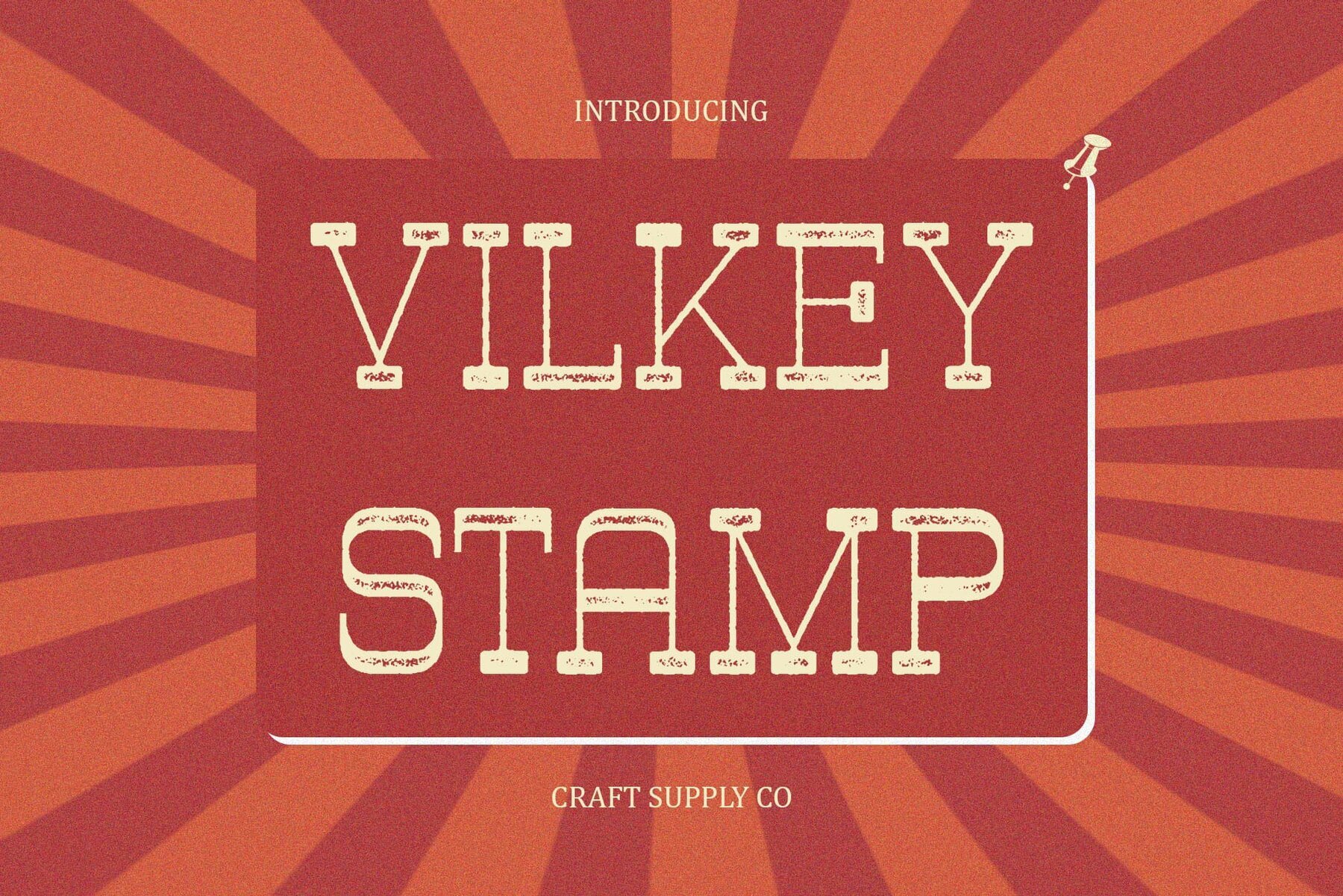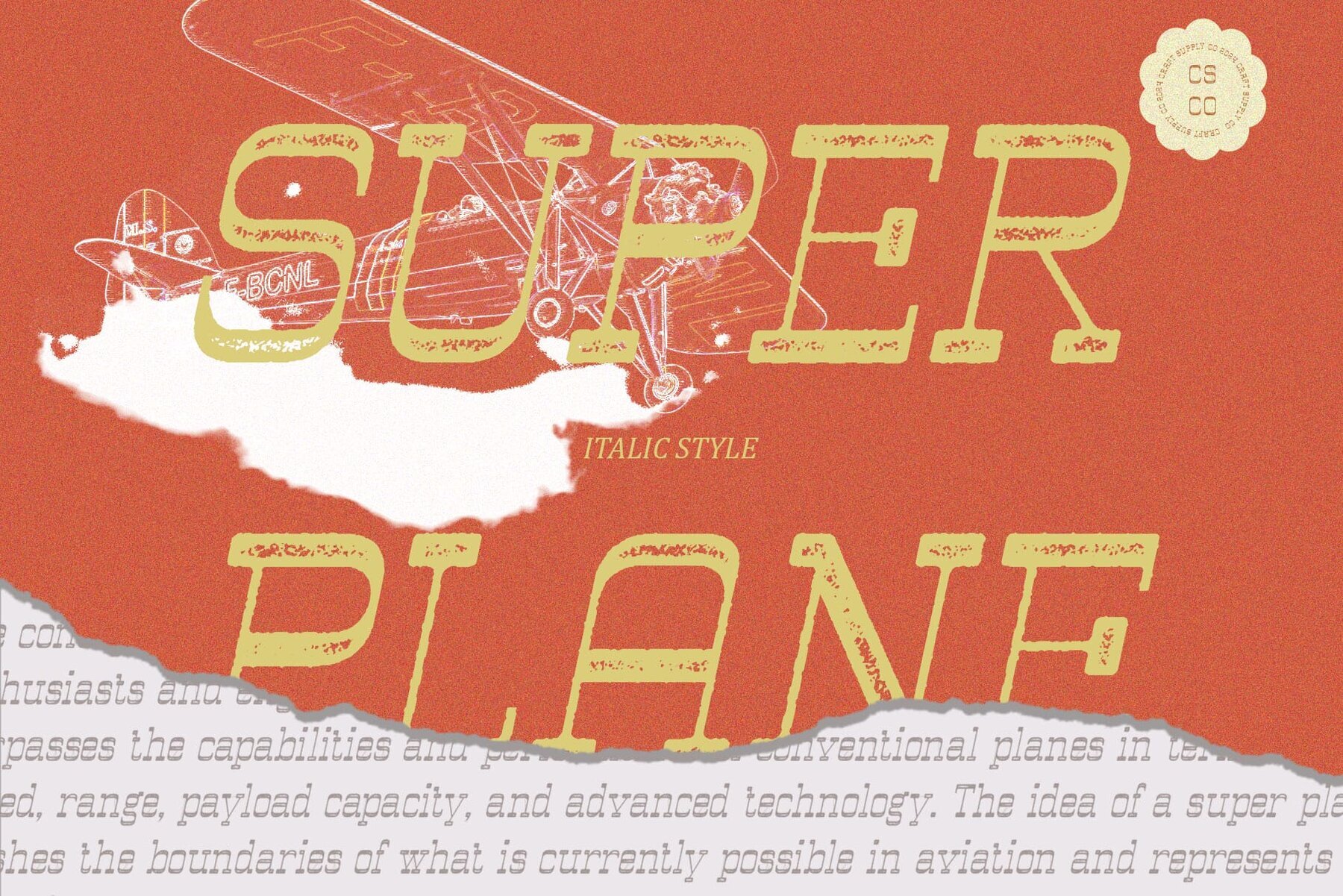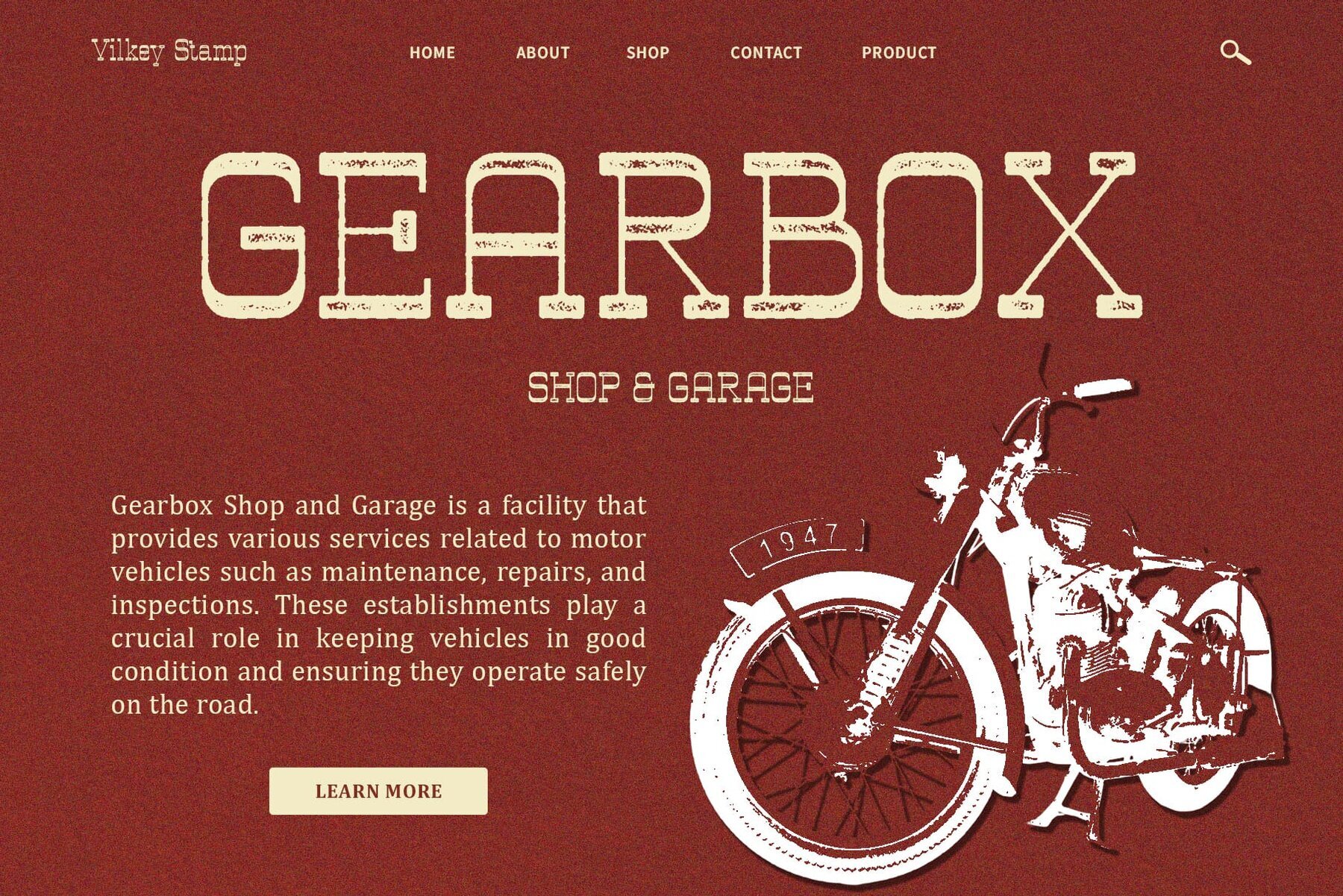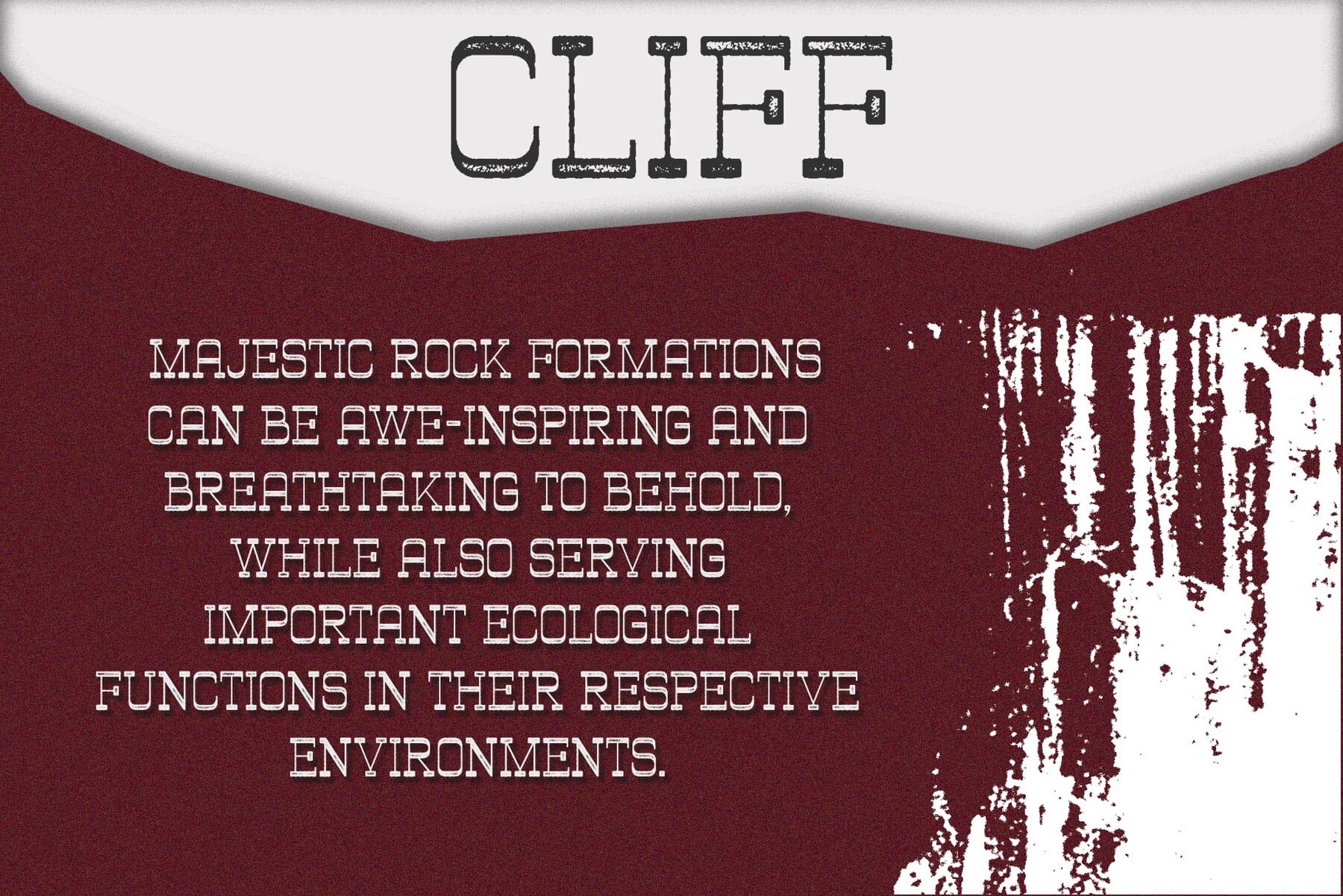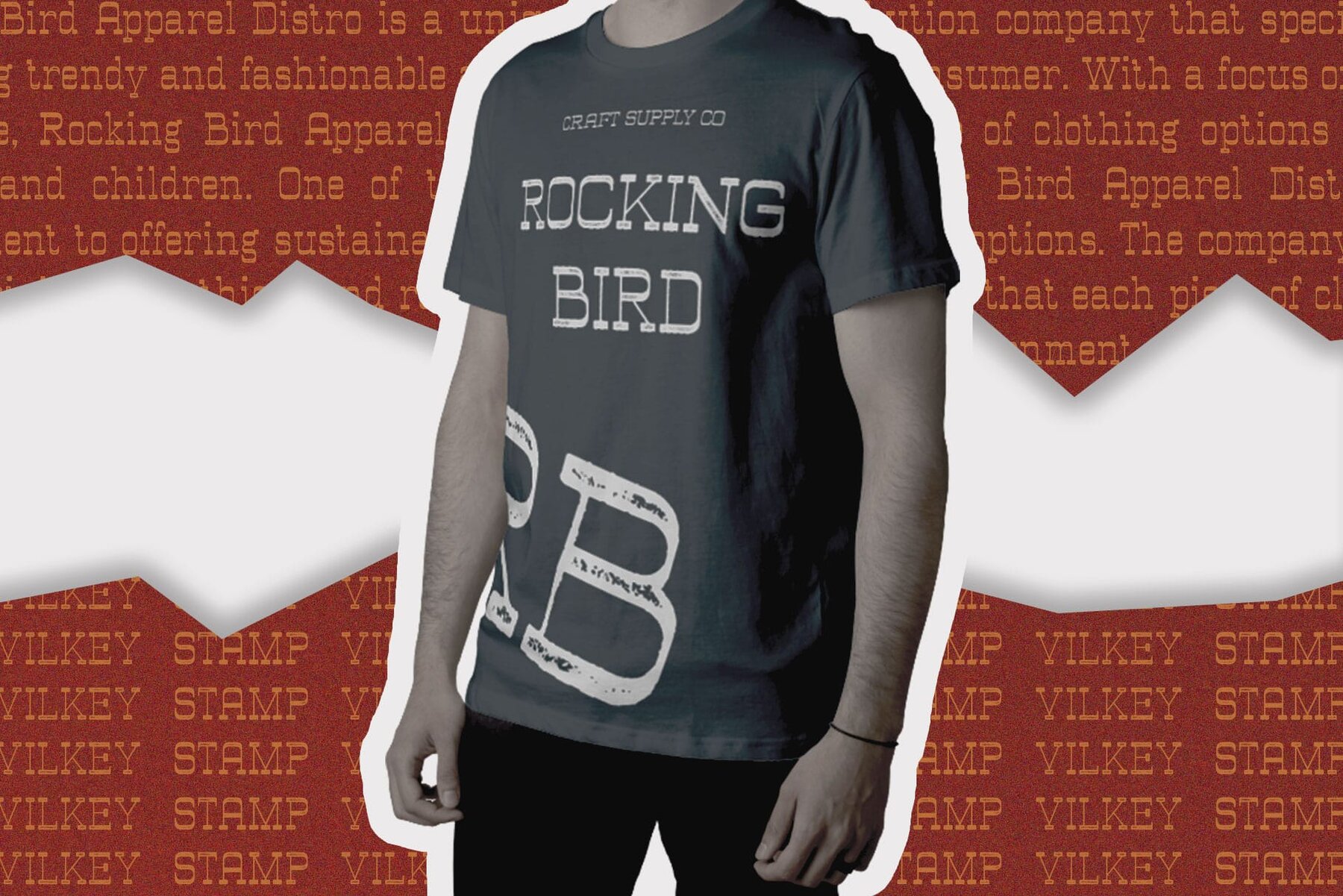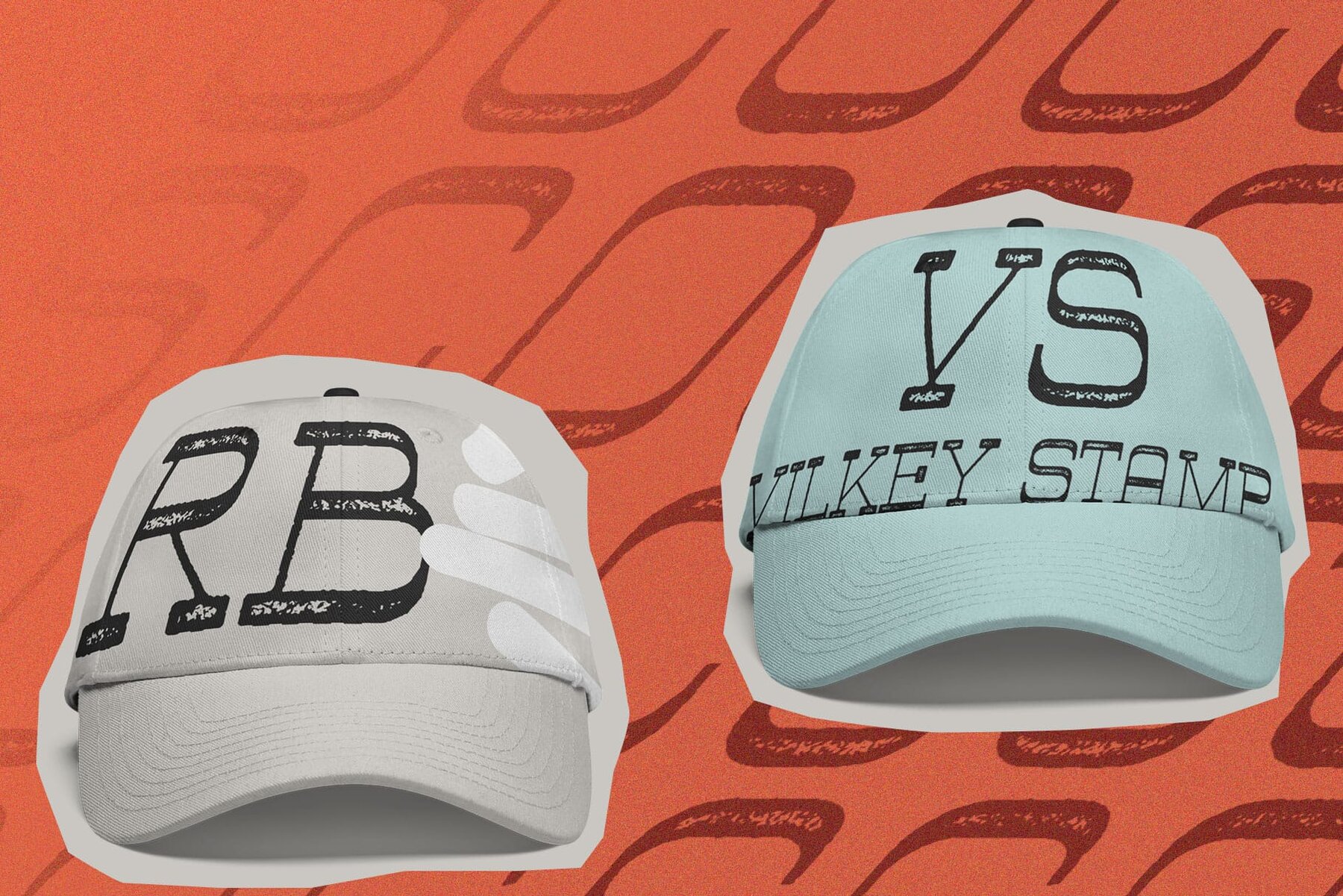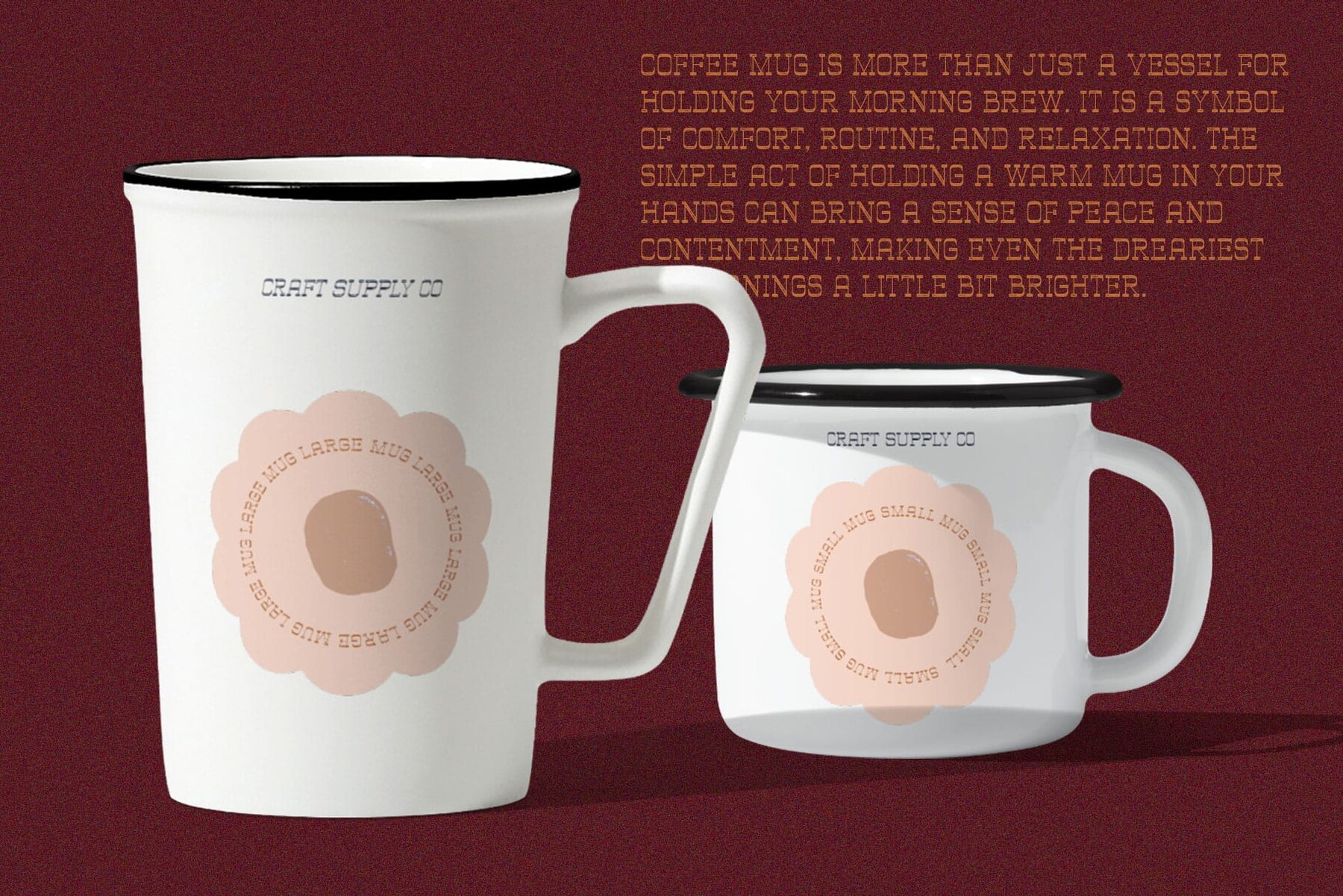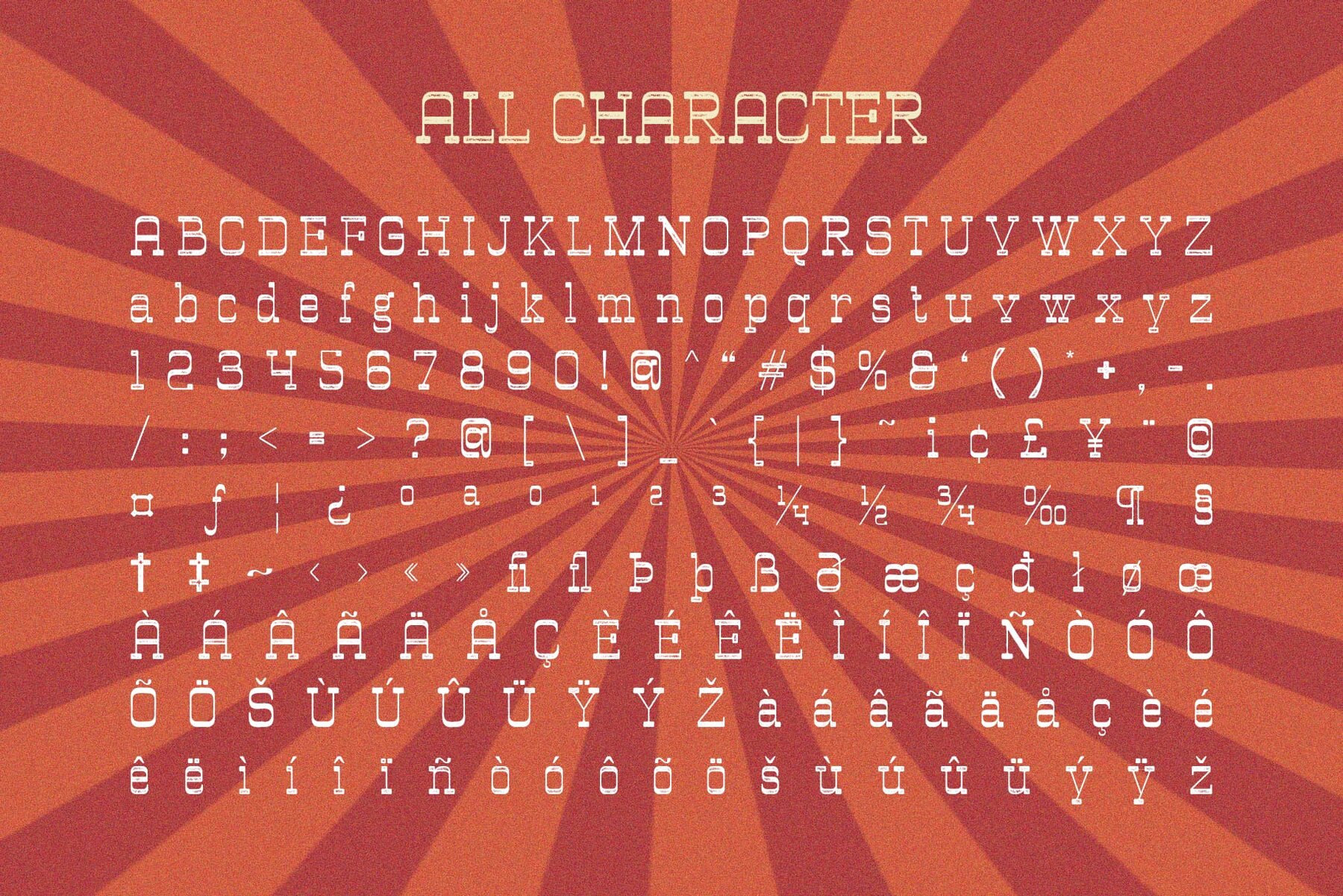
Vilkey Stamp Font
The Vilkey Stamp font by Craft Supply Co. offers a striking slab serif design that is perfect for making a bold impact. Its unique features and dynamic appearance make it suitable for a variety of applications. Vilkey Stamp features a distinctive reverse contrast design, where thick strokes are horizontal and slim strokes are vertical. This creates a bold visual contrast that is both eye-catching and impactful. Enhanced with a stamp effect, Vilkey Stamp has a rugged, textured appearance reminiscent of stamped ink impressions. This effect adds depth and character, making it ideal for grabbing attention in display uses. Vilkey Stamp is tailored for display purposes, ensuring that your message stands out prominently. Its bold and distinctive style is perfect for headlines, posters, and signage. Despite its bold appearance, Vilkey Stamp is versatile in application. Whether for vintage-inspired or modern designs, it adds a touch of uniqueness to any visual composition. You can use this typeface without needing any specialized software.Vilkey Stamp: Bold Statement in Reverse Contrast
Dynamic Reverse Contrast
Stamp Effect for Emphasis
Perfect for Display Usage
Versatile Application